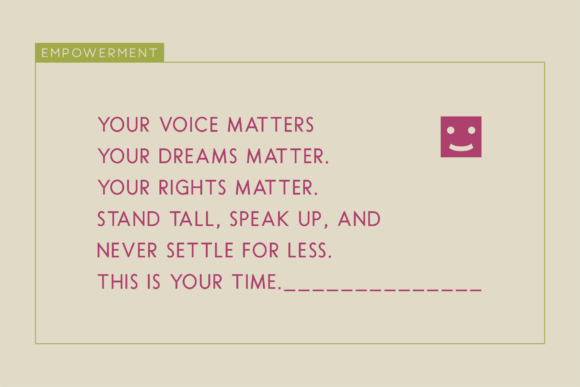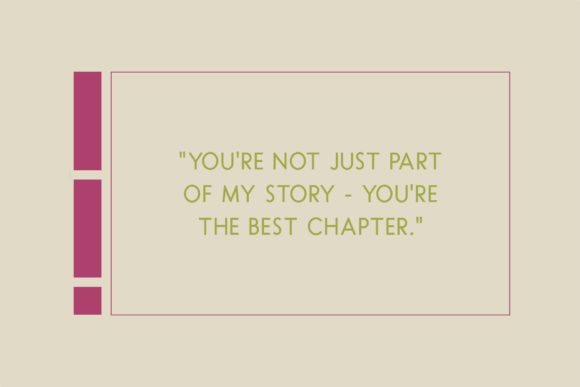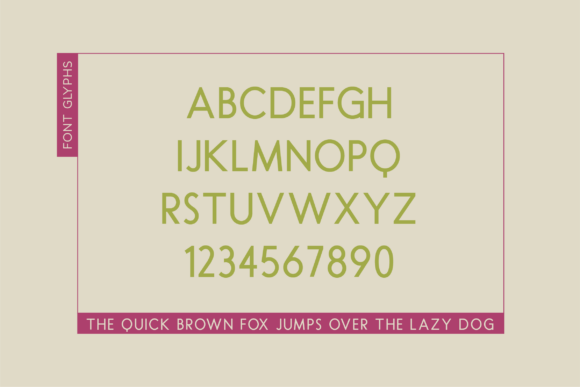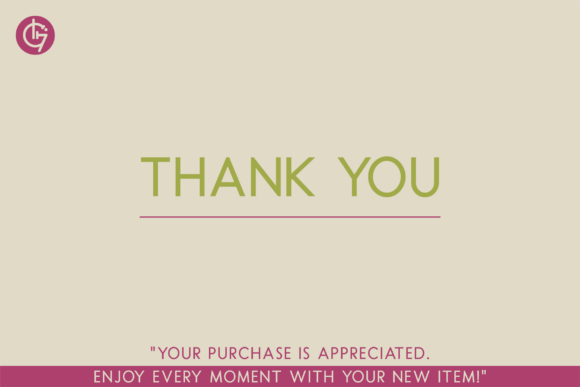
Introducing Fonsera – A Modern Sans Serif Typeface
As designers, we’ve all been there – stuck on a project, searching for the perfect font to bring our vision to life. I recall working on a branding project for a tech startup, wanting a font that exuded professionalism, strength, and authority. The client was looking for something modern, yet timeless. After hours of scouring font libraries, I stumbled upon Fonsera – a bold, all-caps sans serif font that instantly caught my attention.
With its clean lines and minimalist aesthetic, Fonsera was the perfect solution. It added a touch of sophistication to the design, making it perfect for projects that require a sense of professionalism and impact. Whether you’re designing a logo, website, or print material, Fonsera makes a statement with its sharp, crisp edges.
What I Love About Fonsera
Fonsera has quickly become one of my go-to fonts, and here’s why:
- ✨ All-caps design for maximum impact – Fonsera’s bold, all-caps design ensures your message stands out, making it perfect for headlines, posters, and titles.
- ✅ Modern, minimalist style with a focus on readability – The clean lines and geometric structure of Fonsera make it easy to read, even at smaller font sizes.
- 💼 Ideal for branding, logos, packaging, and digital design – Fonsera’s versatility makes it perfect for a wide range of design projects, from business cards to billboards.
- 📝 Perfect for both large-scale headlines and smaller text blocks – Fonsera’s clear and concise design makes it suitable for both large headings and smaller paragraphs of text.
While Fonsera is an excellent font, there are a few things to keep in mind:
- 🤔 Limited use in body text – Due to its bold design, Fonsera may not be the best choice for lengthy paragraphs of body text. It’s best used for headings, titles, and short paragraphs.
- ⚠️ Not suitable for low-contrast backgrounds – Fonsera’s bold design can sometimes make it difficult to read on low-contrast backgrounds. Make sure to choose a background that provides sufficient contrast.
Fonsera was designed with the modern designer in mind. Its clean lines and geometric structure are inspired by the works of renowned designers like Jan Tschichold and Josef Müller-Brockmann. The font’s bold and confident design makes it perfect for projects that require a sense of professionalism and impact.
| What is Fonsera? | Fonsera is a bold, all-caps sans serif font designed for the modern designer. It’s perfect for projects that require a sense of professionalism and impact. |
| Is Fonsera suitable for body text? | While Fonsera is a beautiful font, it’s best used for headings, titles, and short paragraphs. It’s not recommended for lengthy paragraphs of body text. |